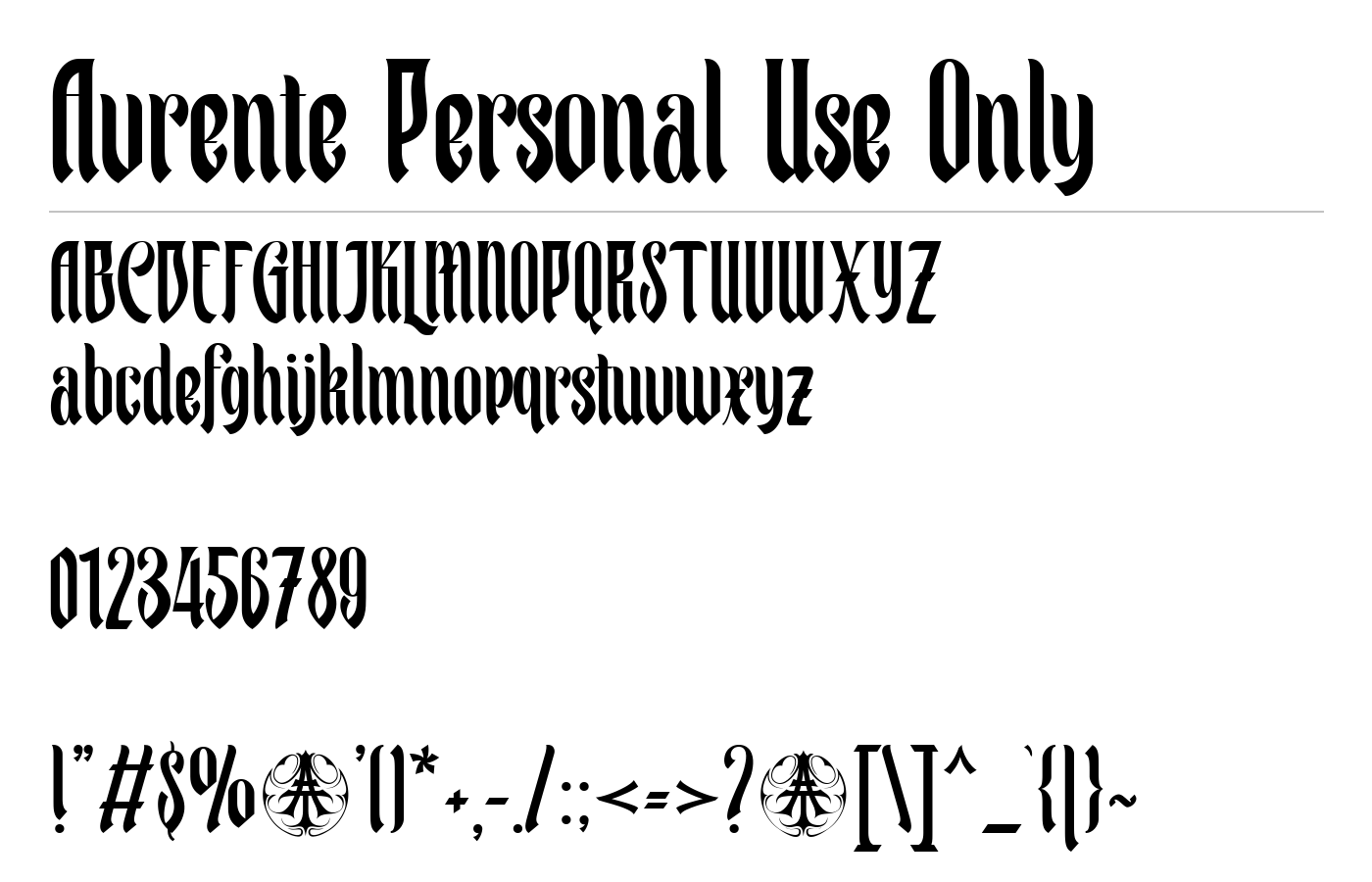
Avrente Personal Use Only is a distinctive serif font with a strong gothic influence, characterized by tall, narrow letterforms and sharp, angular details. Its high contrast between thick and thin strokes, along with stylized serifs and unique decorative glyphs, lends a dramatic, vintage-style flair perfect for bold headlines, logos, and display uses where a touch of classic elegance and mystery is desired. This font works well in projects aiming for a sophisticated yet eye-catching appearance, such as branding for fashion, luxury, or creative industries.
Avrente Personal Use Only Font
About Avrente Personal Use Only Font